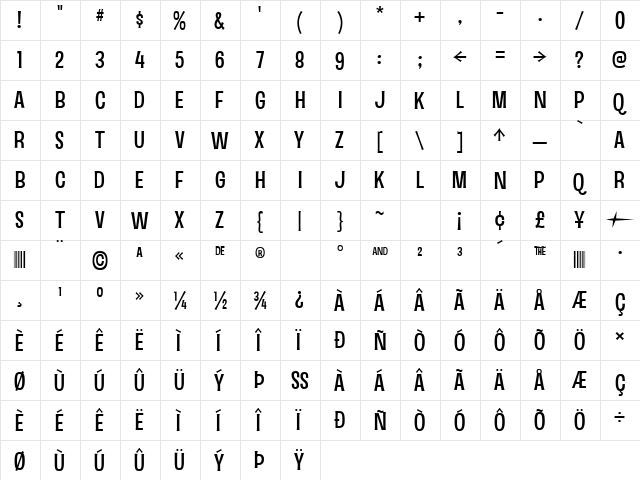
Sinzano Regular
Design Context for Sinzano Typeface
Sinzano is a composed and adaptable typeface that performs quietly and consistently across a wide range of design contexts.